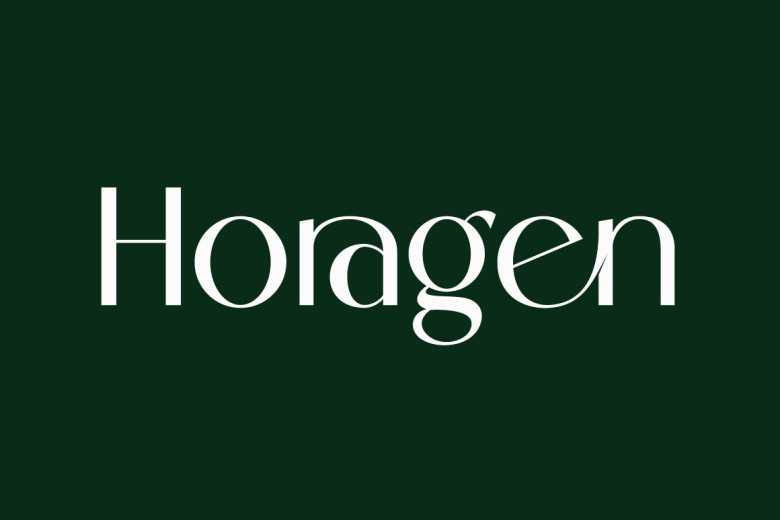
Horagen Font
Horagen is sans serif font which has a simple, clean, but visual elegance. Specifically designed for projects themed elegance, can be very suitable to make chic designs such as logos, invitations to fashion events, magazines, etc.
Horagen Sans Serif Font